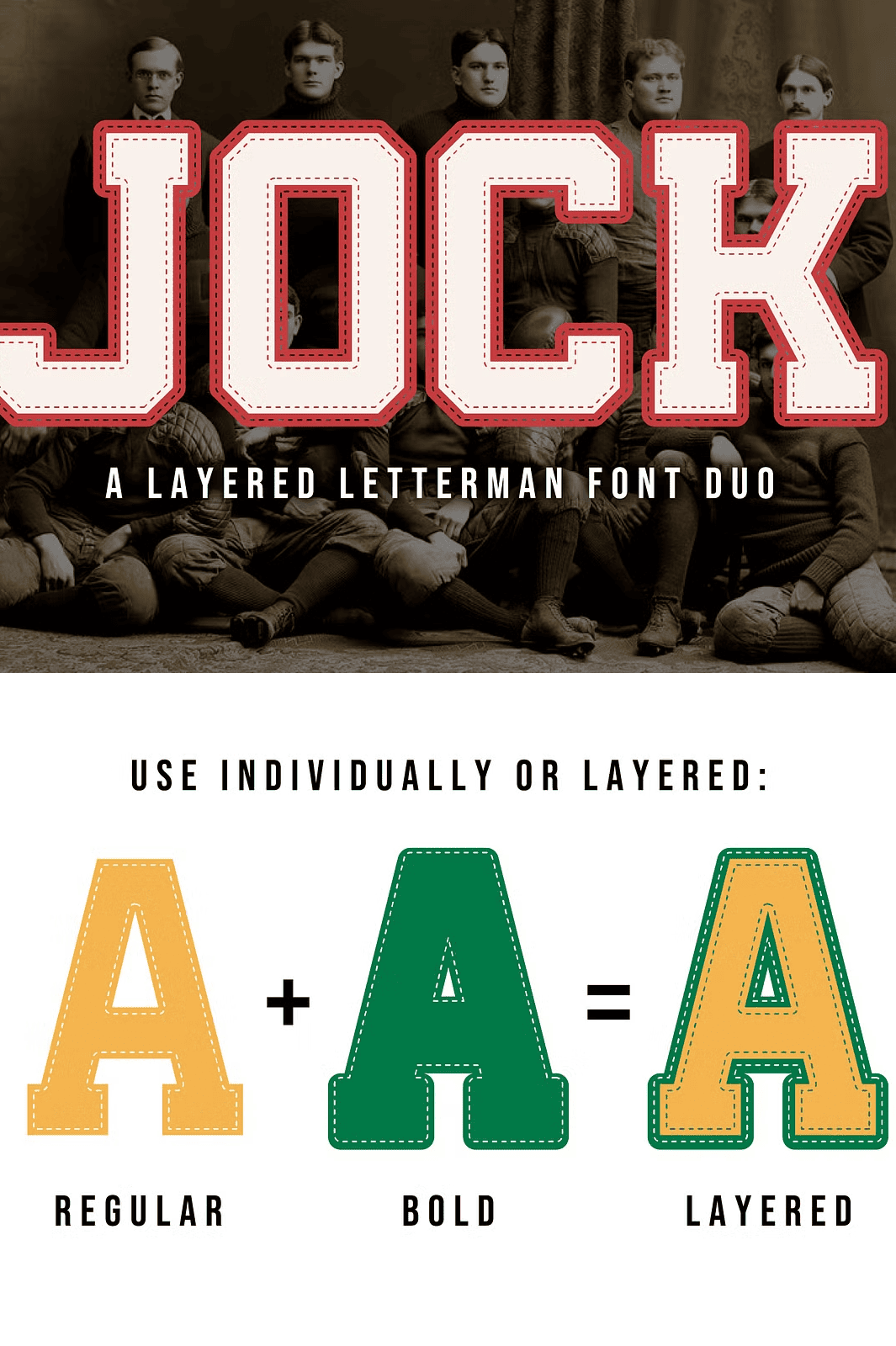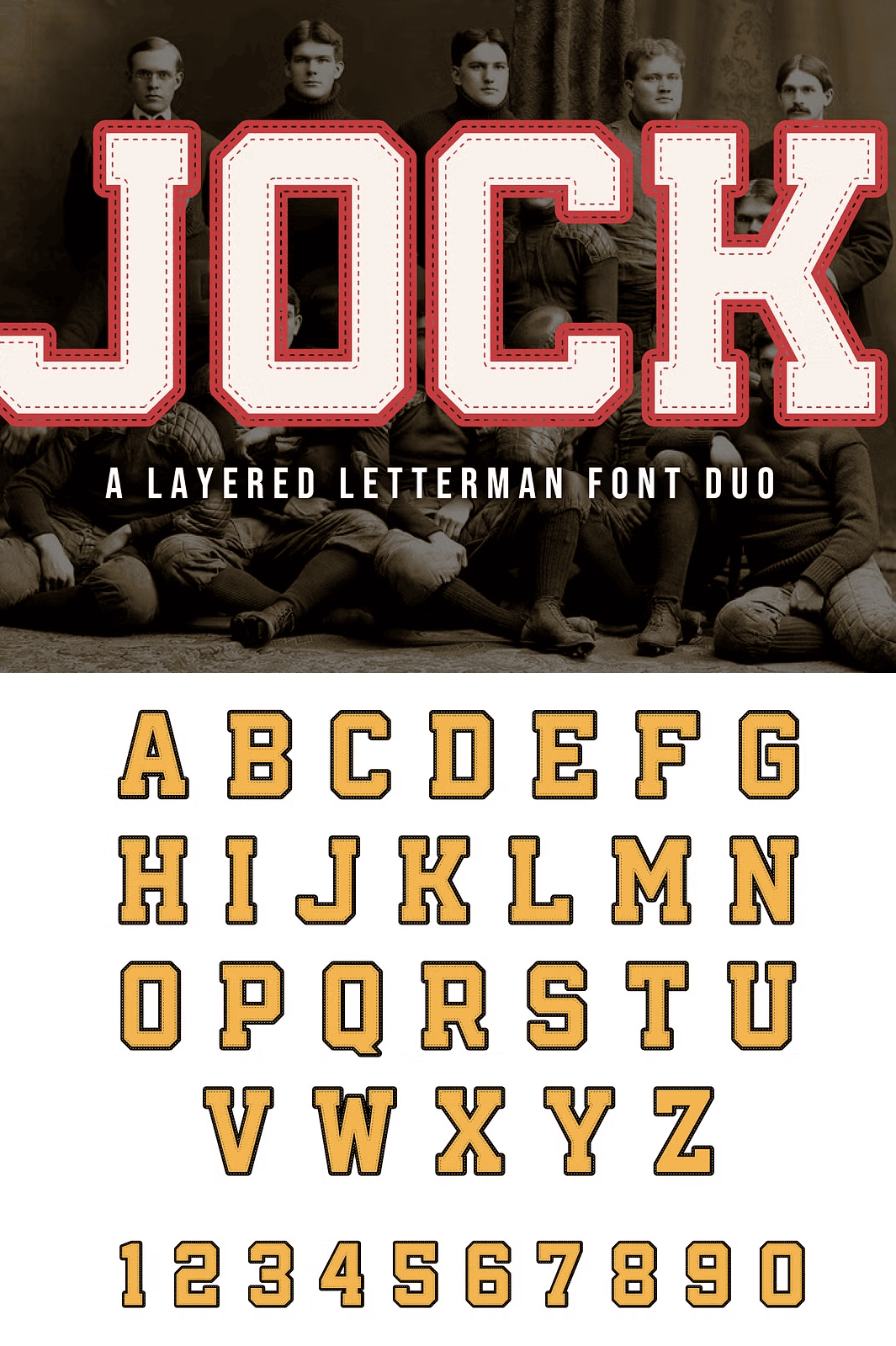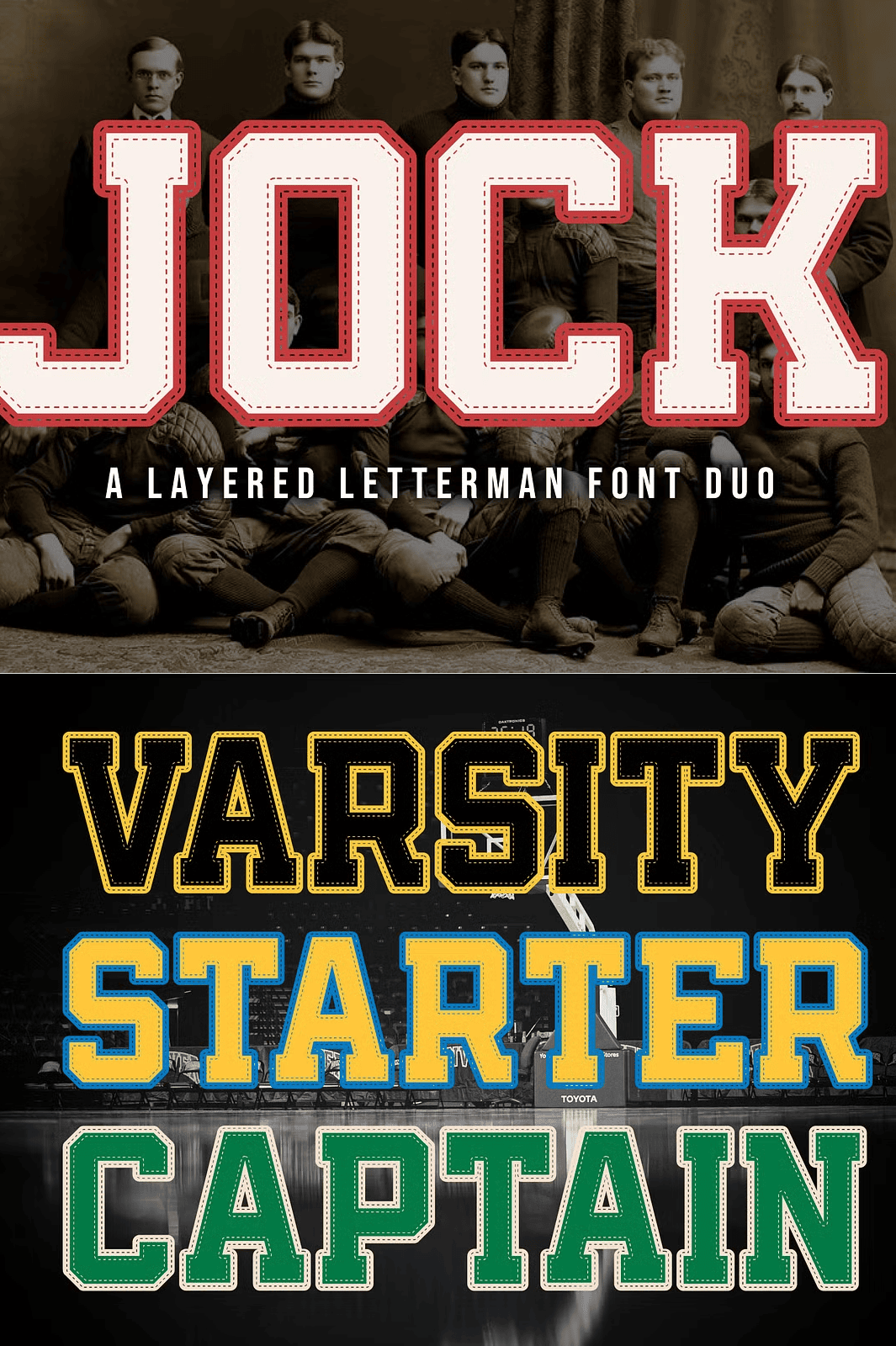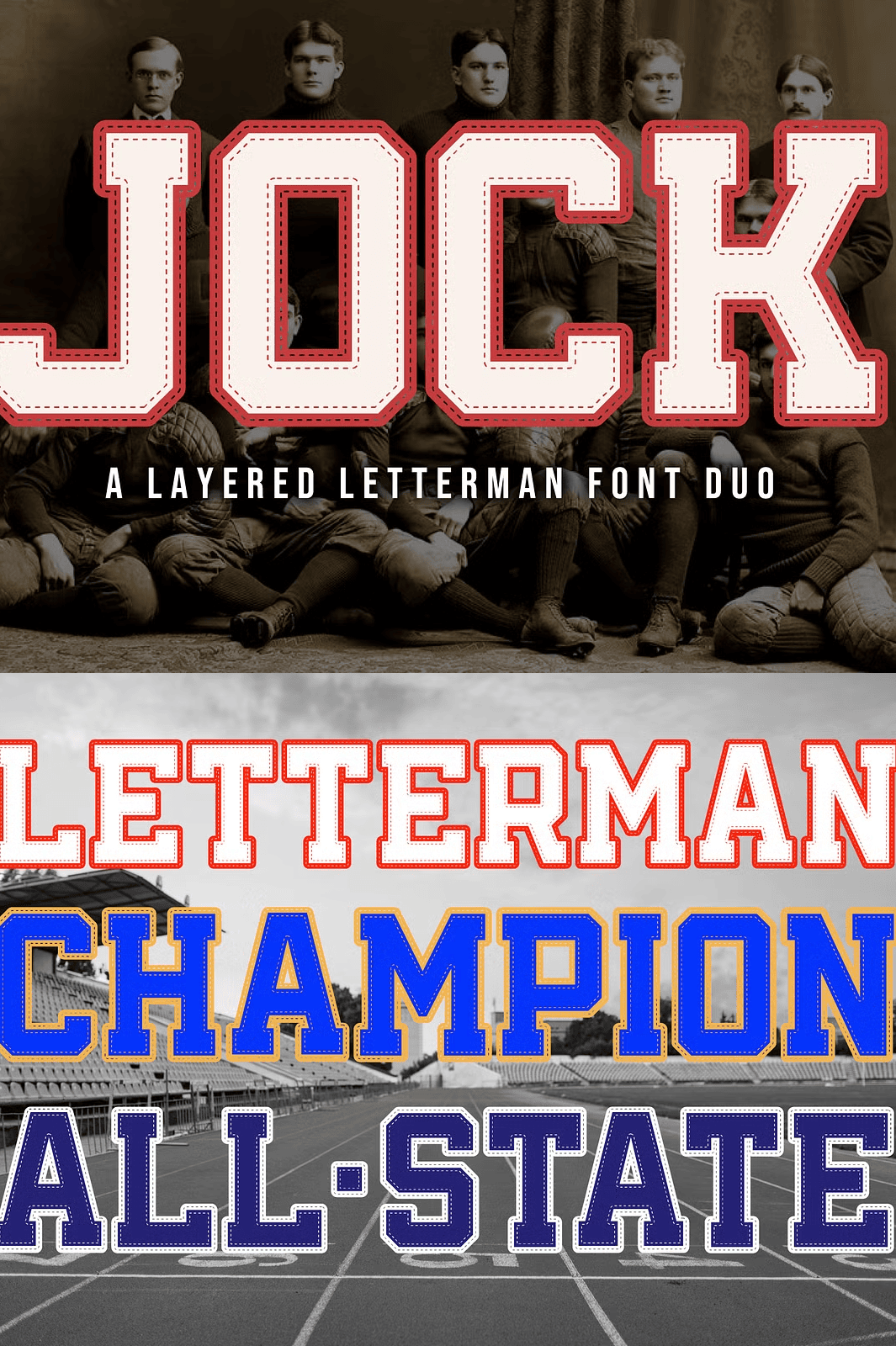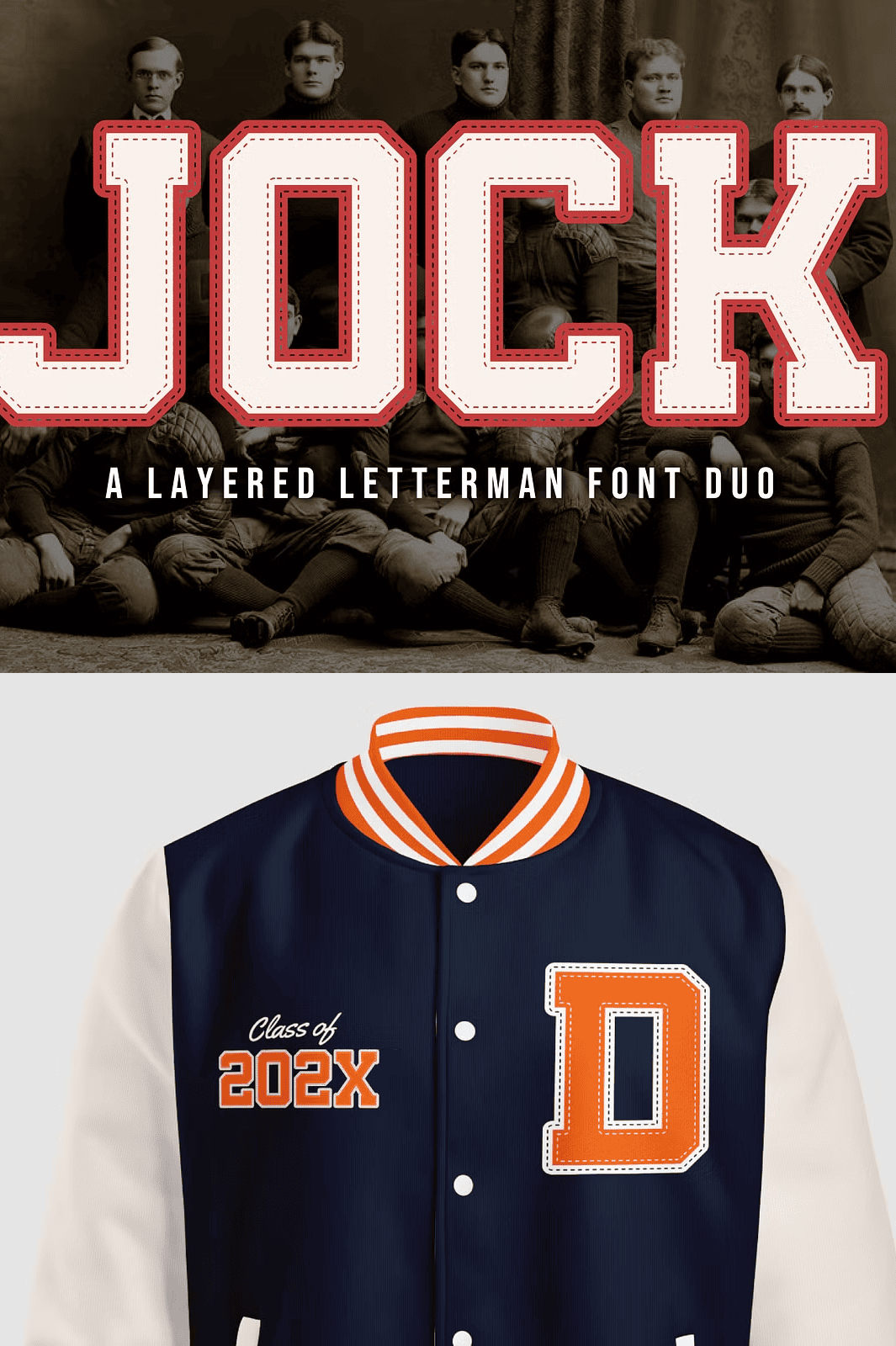
Dominate Your Designs with Authentic Varsity Flair
Nothing says classic American sports legacy like the timeless look of a letterman jacket. Now, bring that legacy to life in your designs with **JOCK**, a bold, authentic letterman font engineered to deliver the instant impact of vintage athletic wear. Whether you’re designing for high school sports teams, college branding, retro apparel lines, or nostalgic event posters, JOCK gives you the tools to create instantly recognizable, high-energy typography that stands out from the crowd.
Designed with precision and packed with character, JOCK isn’t just a font — it’s a visual time machine. Its sharp, structured forms and athletic geometry capture the very essence of varsity pride, confidence, and tradition. Use it to craft logos, team banners, championship signage, and merchandise that evoke the spirit of victory, teamwork, and school pride.
Power Your Projects with Two Versatile, Layerable Styles
JOCK includes **two high-impact styles** — **Regular** and **Bold** — each carefully crafted to work independently or together for dynamic, custom effects. Master the art of visual layering with a single click:
- Regular Style: The foundation of every varsity look. Clean, balanced, and instantly recognizable — perfect as a standalone headline or as the base layer for stacked designs.
- Bold Style: The statement-maker. Thick, strong, and aggressive, it delivers weight, depth, and commanding visibility. Ideal for headers, badges, and centerpieces.
Stack the Regular and Bold styles together to simulate the stitched, embroidered look of real letterman jackets. This simple layering technique creates instant depth, texture, and authenticity. No Photoshop tricks needed — just open, pair, and project your vision.
Access Every Classic Varsity Character You Need
JOCK delivers a complete set of classic letterman-style typography features:
- Full Uppercase Alphabet: Every letter from A to Z, designed for maximum visibility and impact.
- Numbers 0–9: Essential for jersey numbers, scores, years, and countdowns.
- Classic Athletic Words: Pre-designed templates like VARSITY, CAPTAIN, CHAMPION, ALL-STATE, JR, SR, and TEAM — ready to use in branding, team kits, or event graphics.
Design Inspiration: JOCK was born from a love of vintage American sports culture. Its forms are built for action — strong, bold, and full of life. Let it speak for your team, your school, or your brand. Let it be the voice of your championship story.